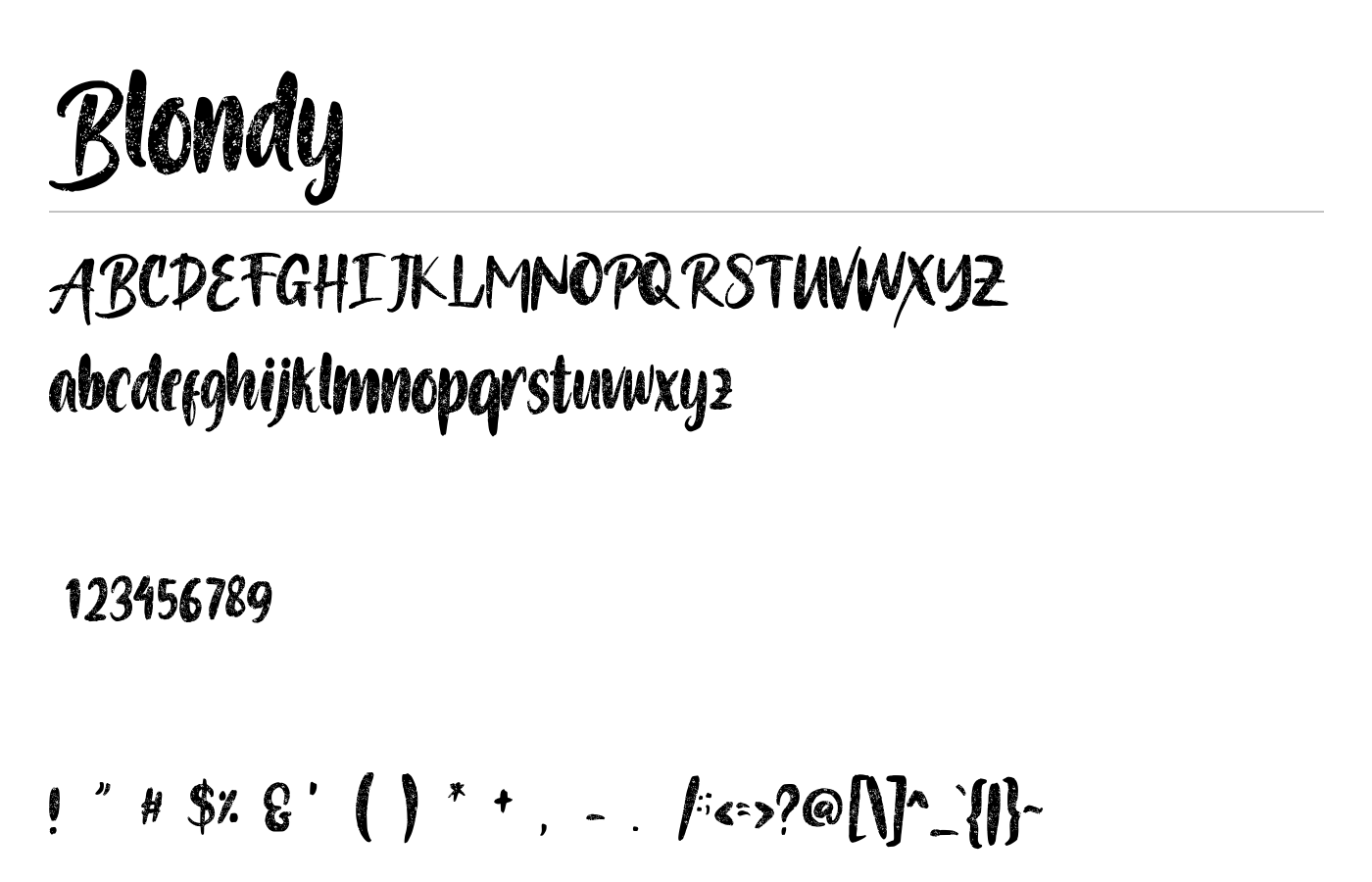
Blondy Font is a lively and textured script typeface that combines a hand-painted feel with casual elegance. Its slightly rough, brush-stroke texture adds personality and warmth, making it perfect for creative branding, posters, and headlines where a friendly yet dynamic look is desired. This font works especially well for projects that want to evoke a handcrafted, artistic vibe without sacrificing readability.
Blondy Font